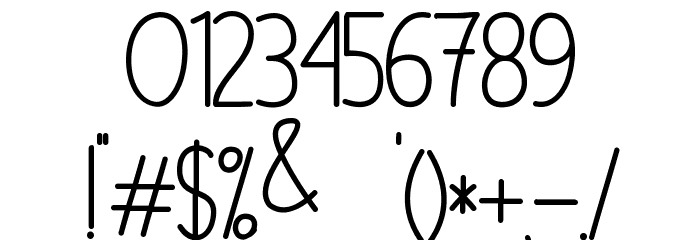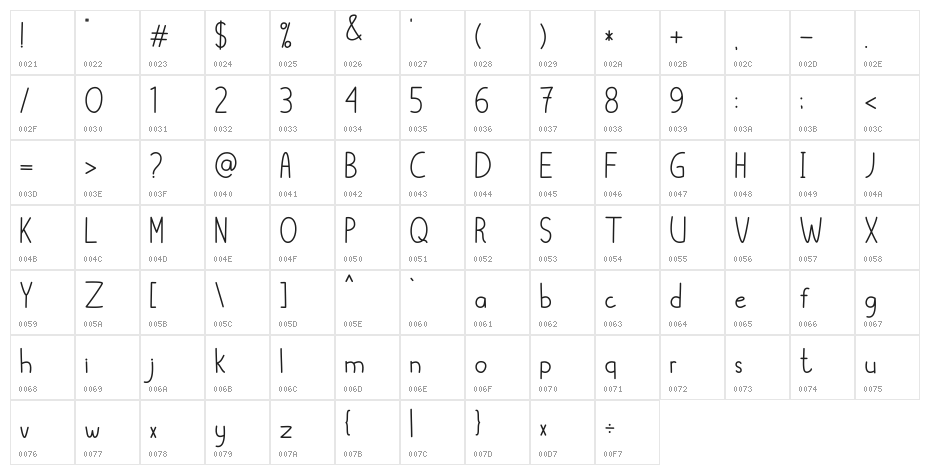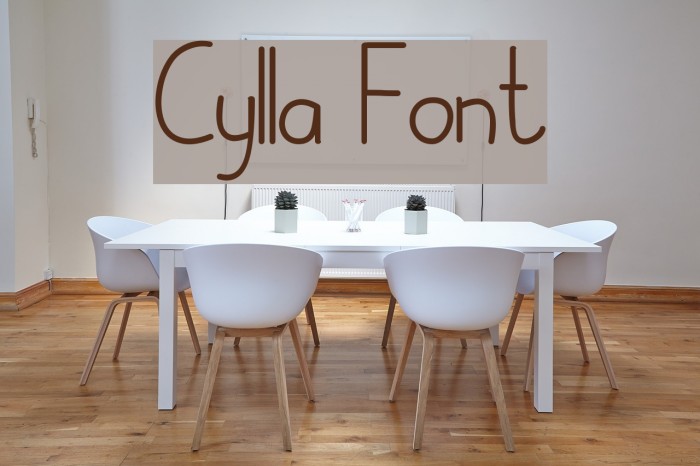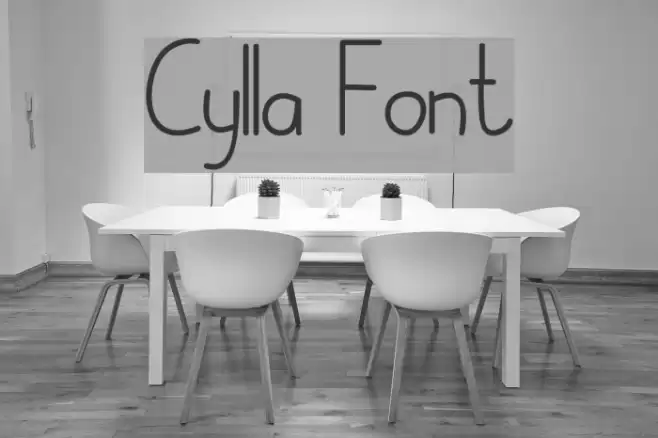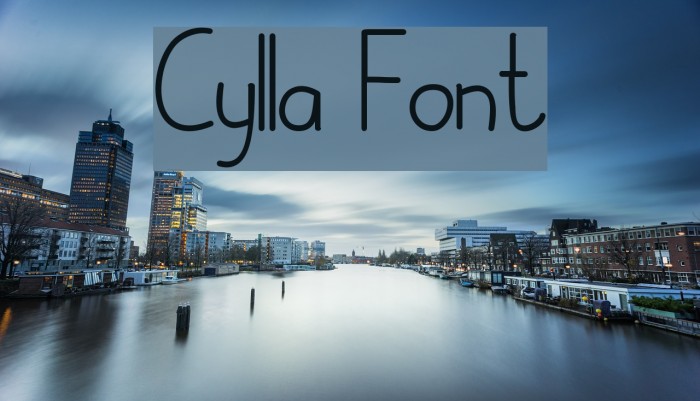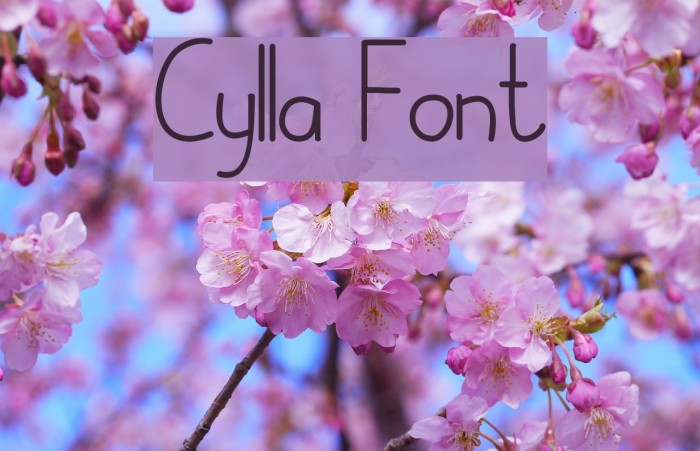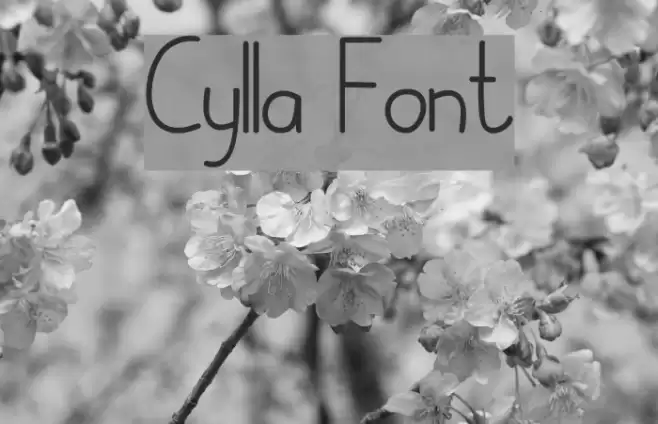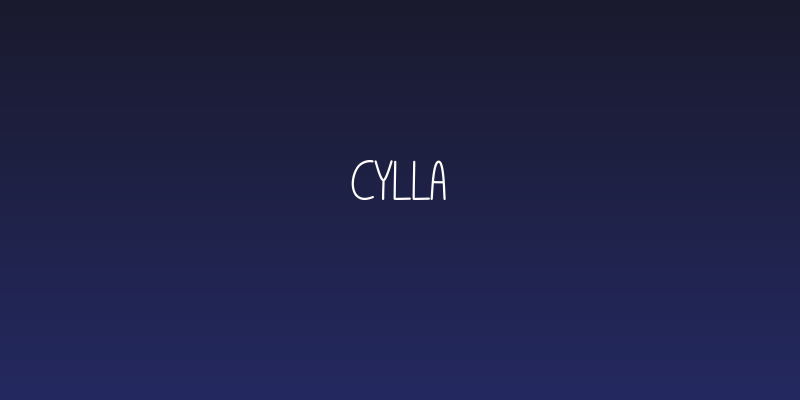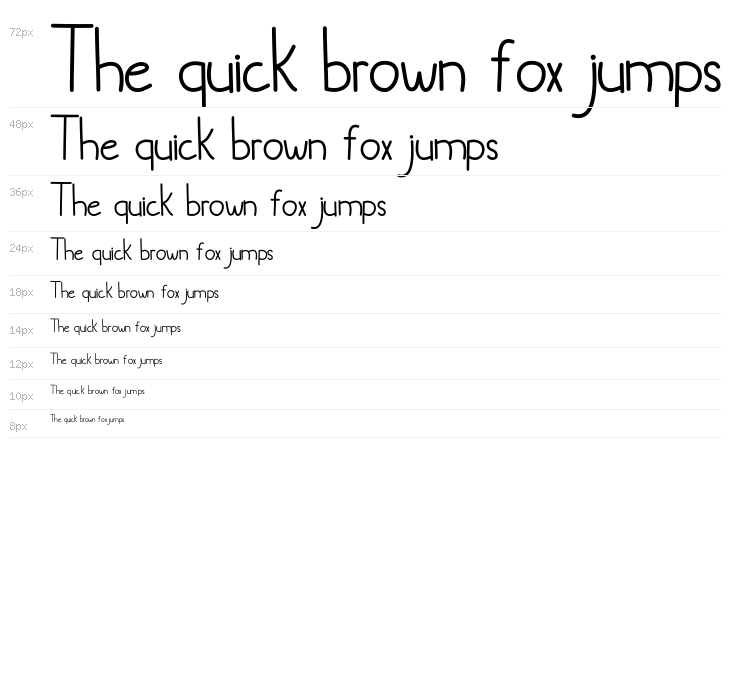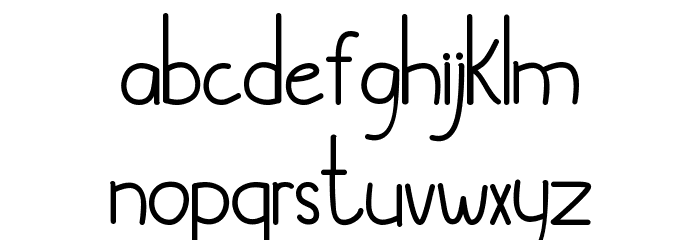
Cylla Font
Cylla Description
This font features a playful and whimsical design with tall, narrow characters that have a hand-drawn appearance. The strokes are consistent in width, giving it a uniform look, while the rounded edges add a friendly and approachable feel. The uppercase letters are slightly taller than the lowercase, maintaining a cohesive style throughout. Numbers and special characters follow the same aesthetic, ensuring versatility across different uses. The overall design is clean and legible, making it suitable for a variety of creative projects.
| Proposed Projects | Ideal for children's books, greeting cards, playful branding, and casual invitations. |